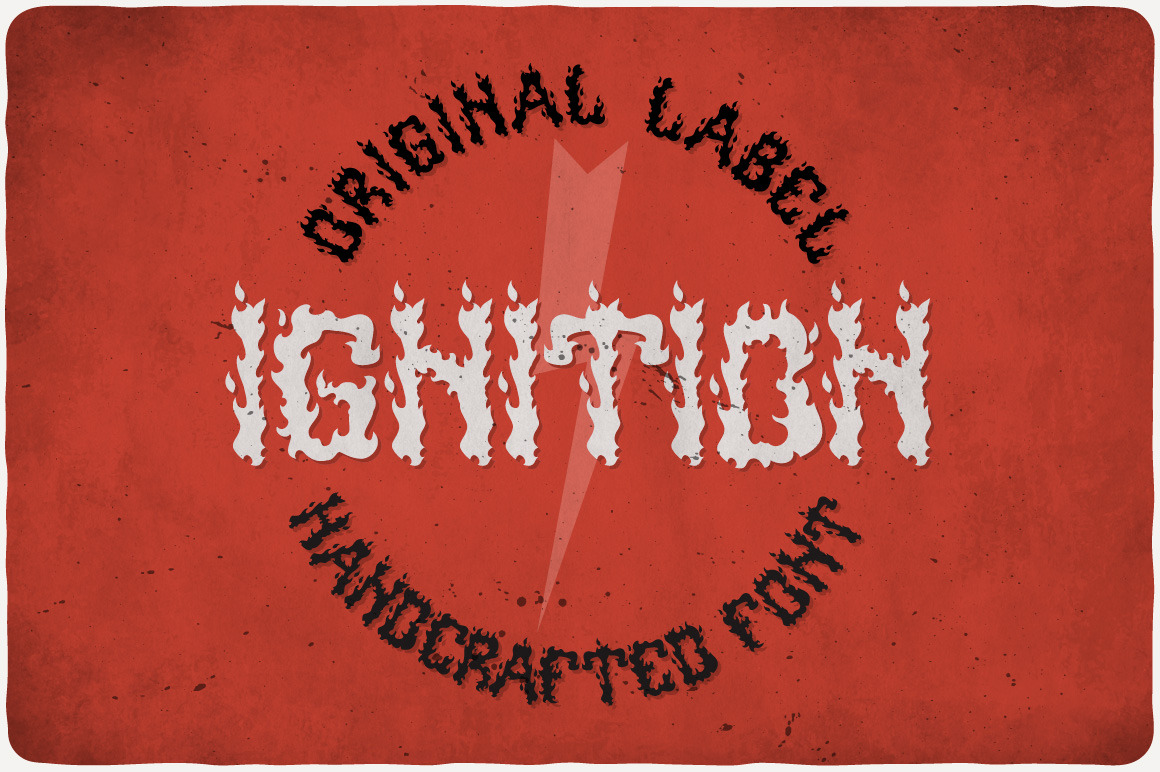
Ignition typeface
Introducing a original look label typeface named "Ignition". It's made in buried style :) Typeface is good viewed on any hot design.